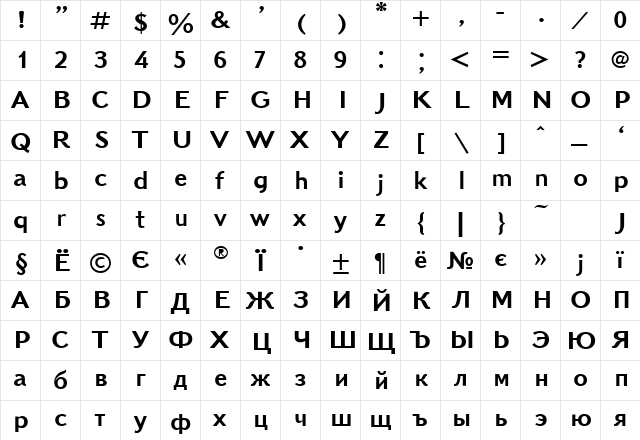
KudrashovSansC Normal
Design Context for KudrashovSansC Typeface
KudrashovSansC offers clean, dependable letterforms without strong stylistic allegiance, making it a practical choice for designers who need flexibility.
Pro Tip: Use KudrashovSansC in both headline and body roles to test its range before committing to a single application.